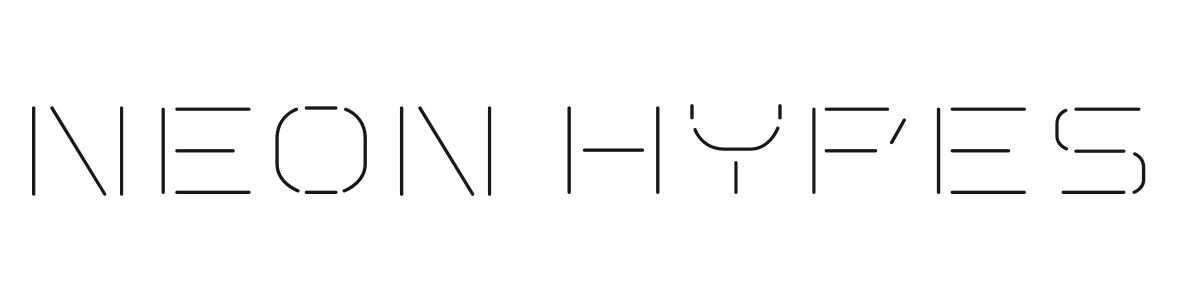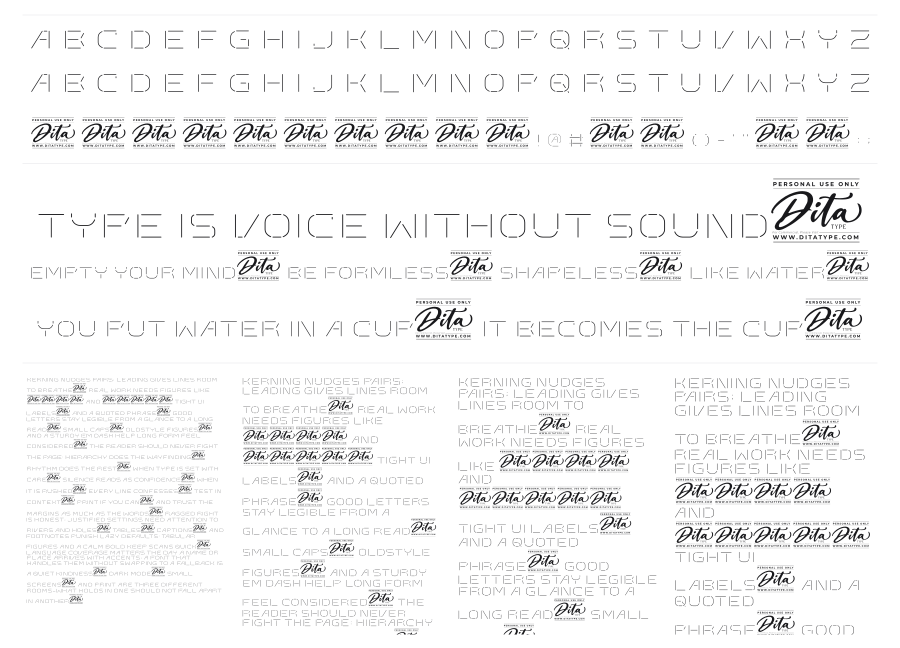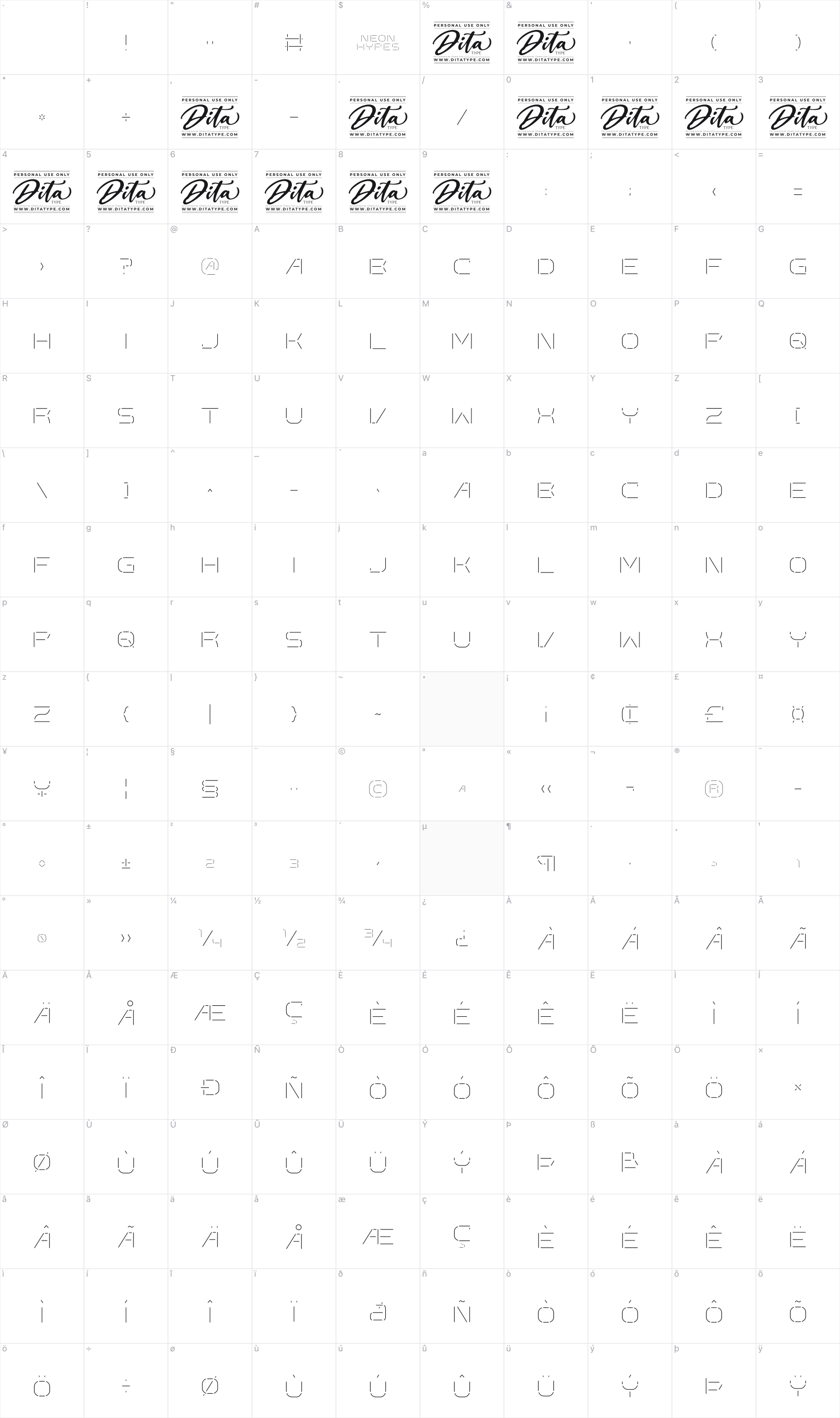
Neon Hypes
Neon Hypes is an ultra-thin geometric display font built around segmented, gap-jointed strokes that mimic the look of neon tube lettering. The hairline weight and generous spacing give it a cold, luminous quality that reads immediately as futuristic. It works best large, where those deliberate breaks in each character can breathe.